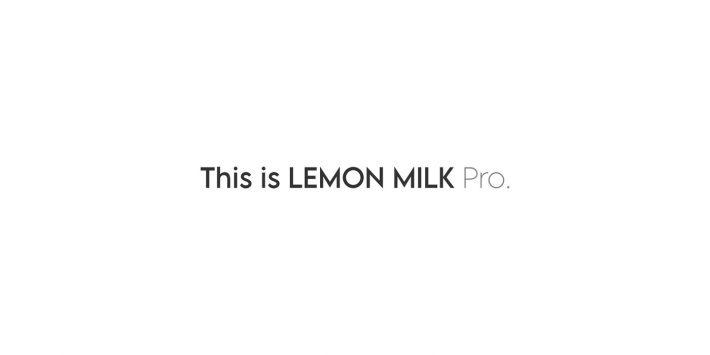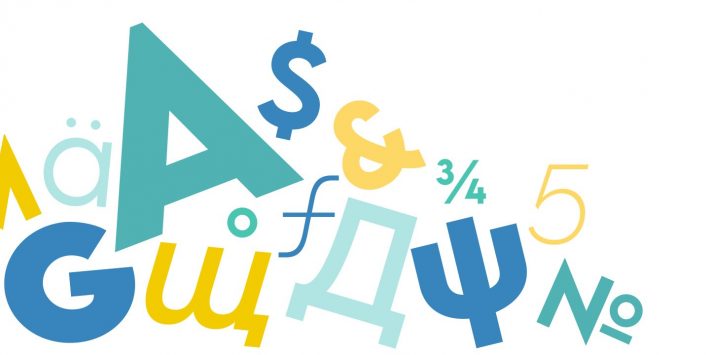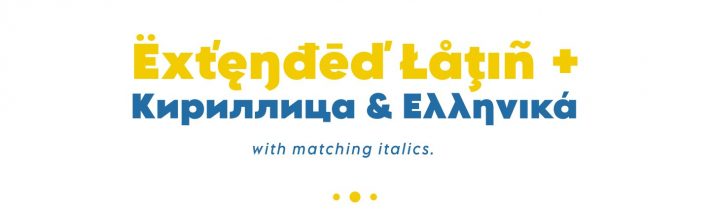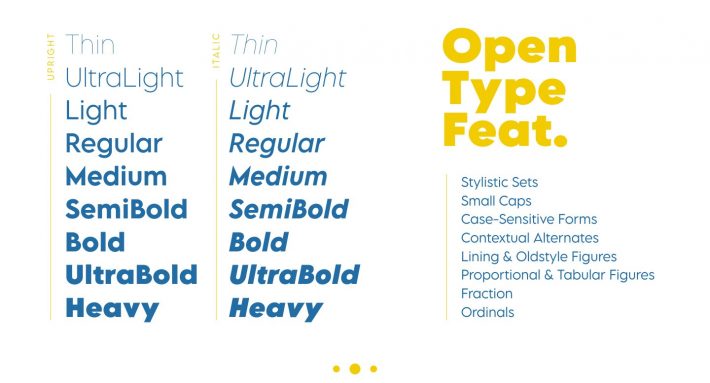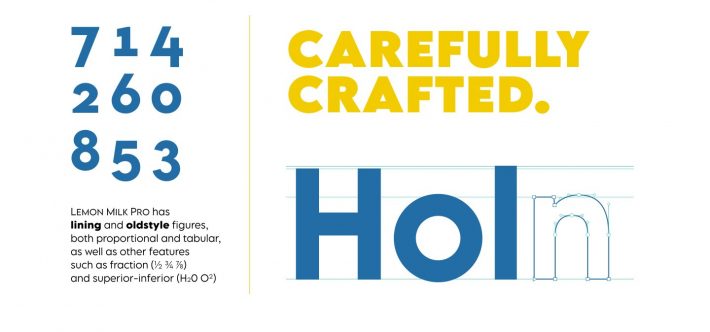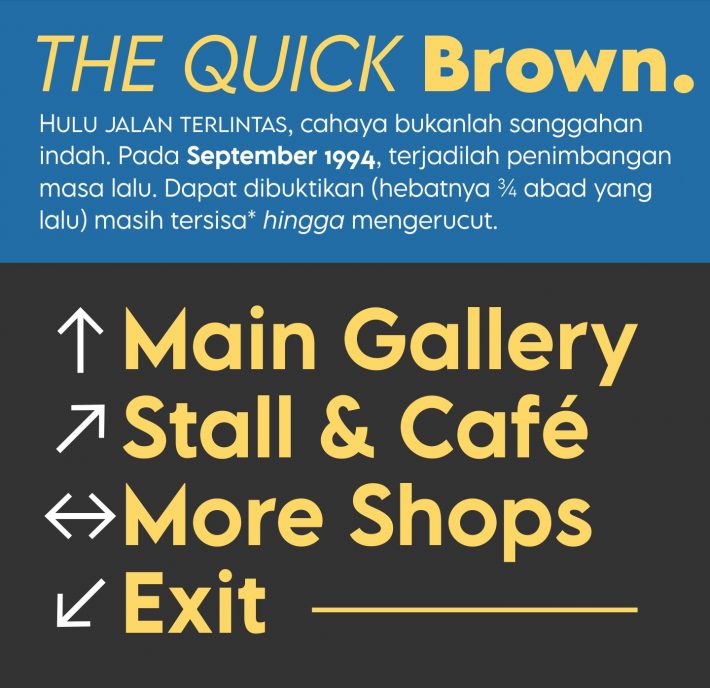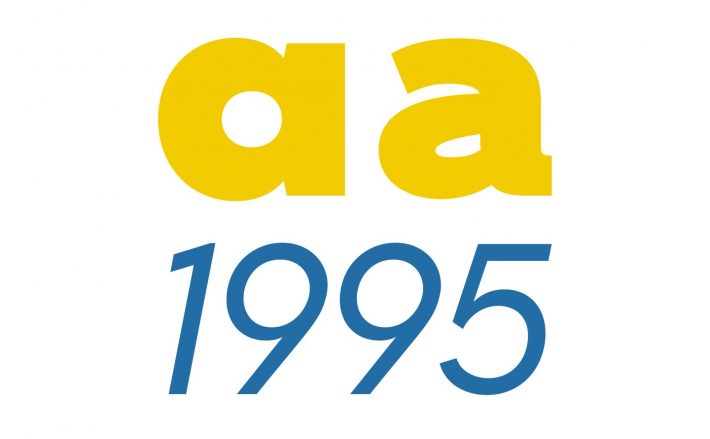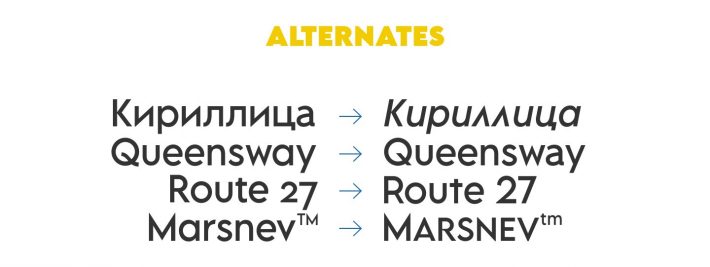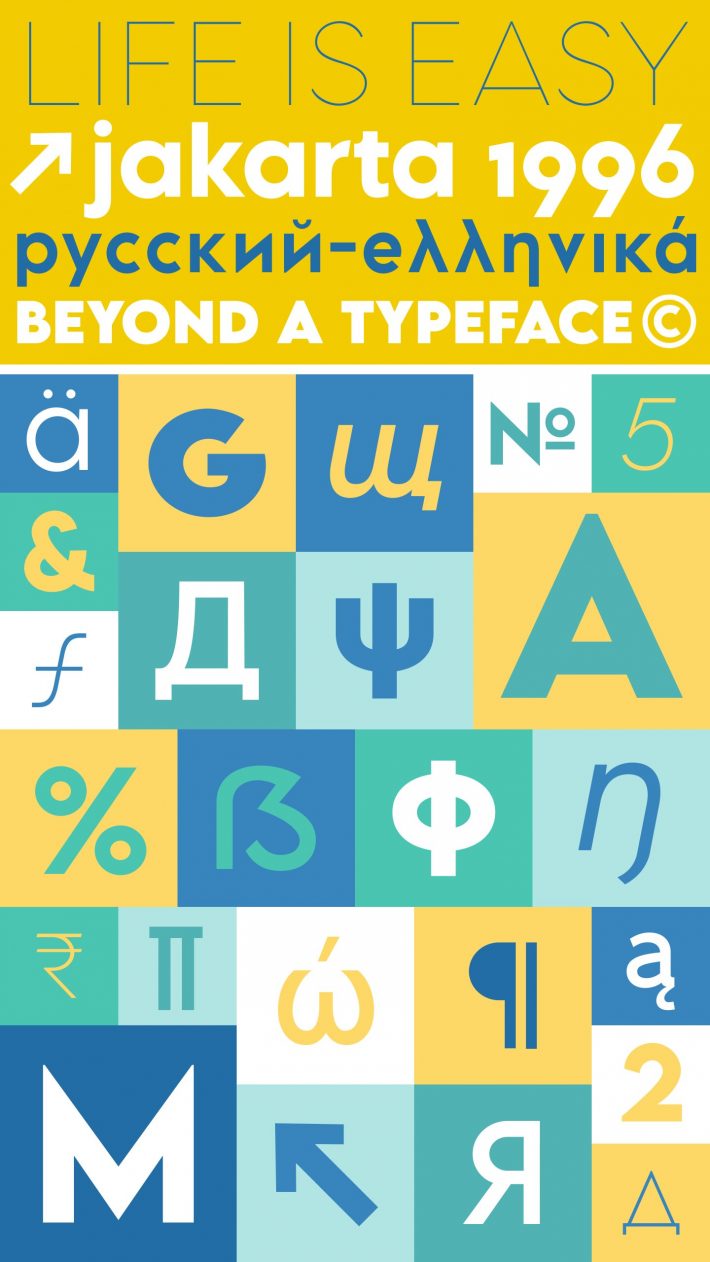
Lemon Milk Font Family
Lemon Milk font a new display typeface. This is a modern sans serif font that is surely supposed to attract. The exclusive sharp sans is mixed with thin strokes to give a bold mid century architectural vibe. It has lowercases, covering extended Latin, Cyrillic and Greek.
It is now future proof with more opentype features and different fonts. Lemon Milk font typeface sharp edges are perfect for every display. No limitation when and where to use it.